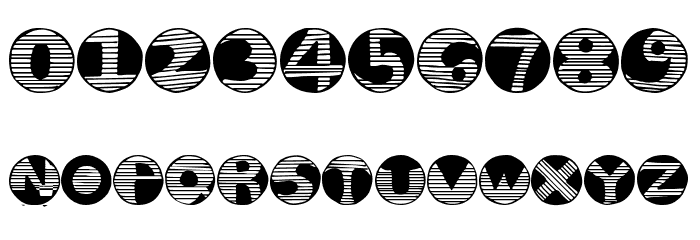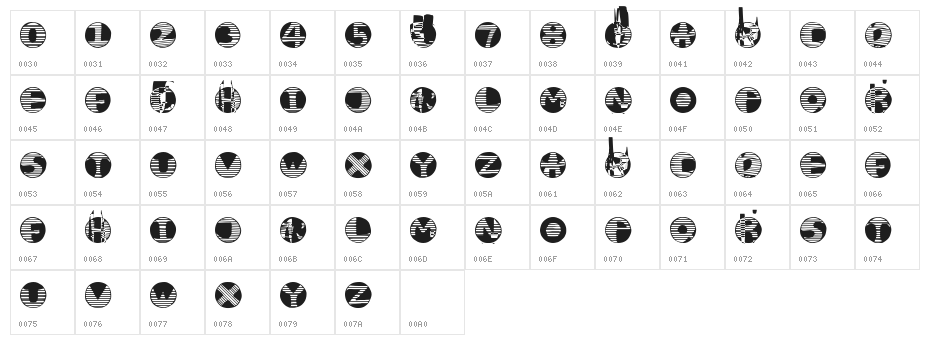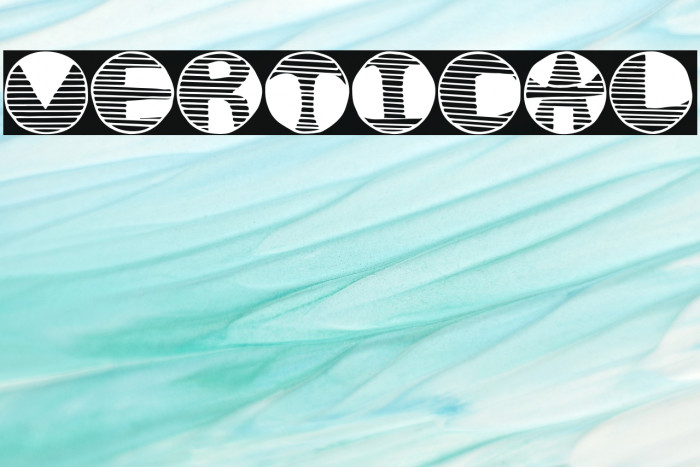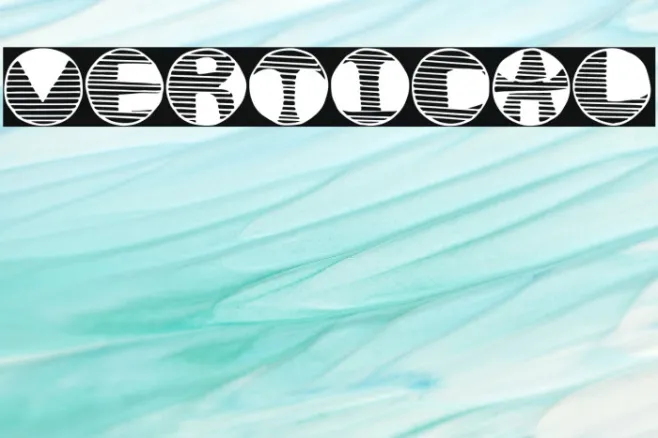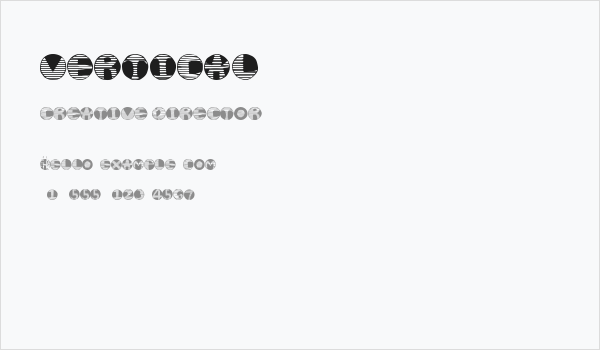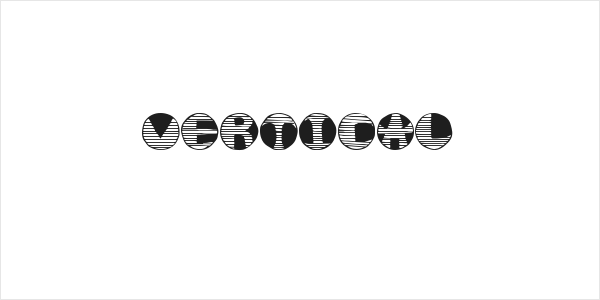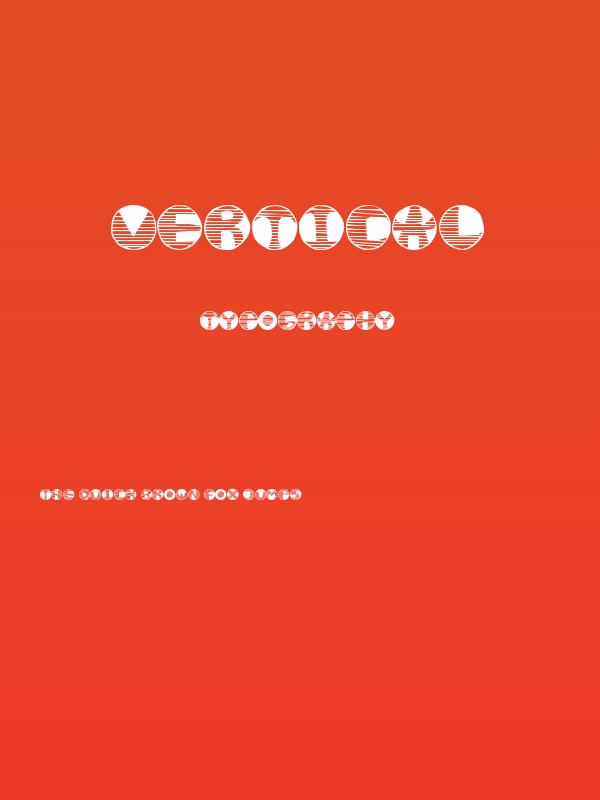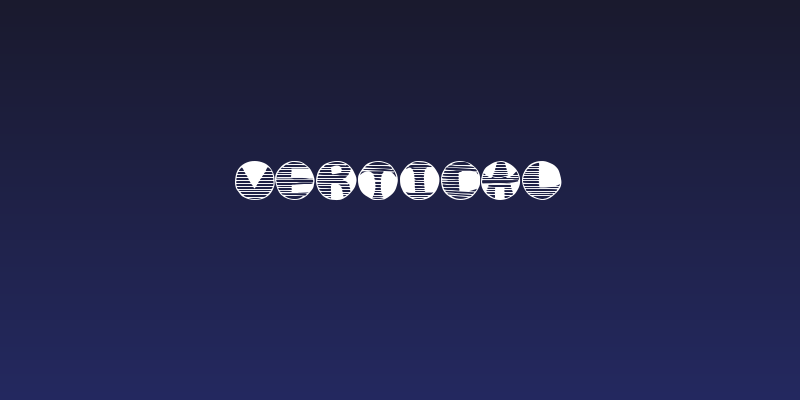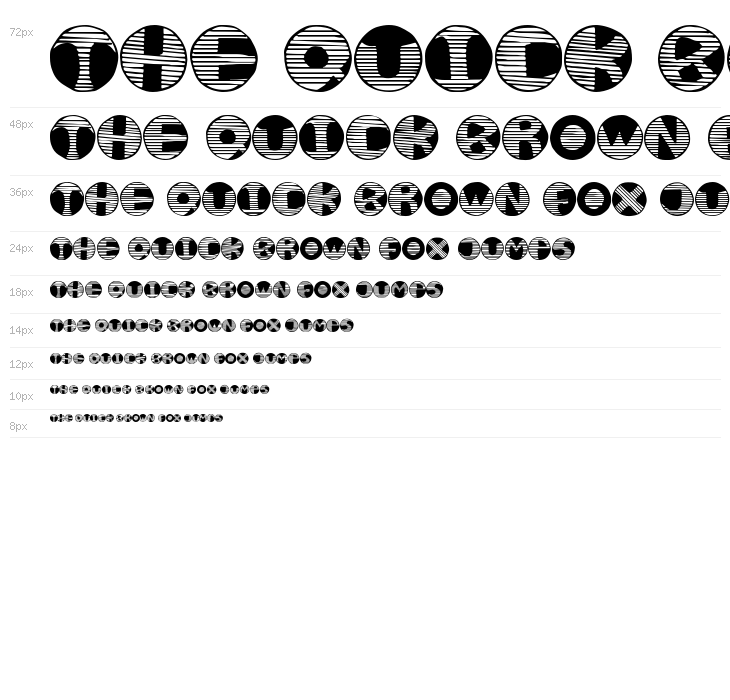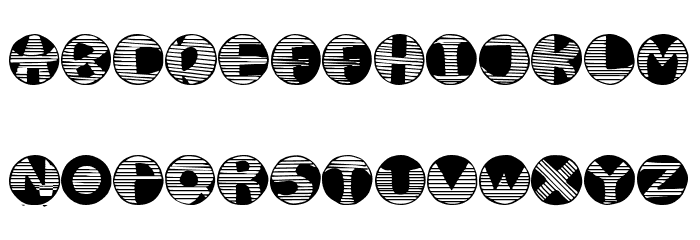
VERTICAL Font
VERTICAL Description
This font features a unique design where each character is enclosed within a circle, creating a bold and eye-catching appearance. The letters are filled with horizontal stripes that alternate between black and white, giving a sense of movement and depth. The geometric style is consistent across uppercase, lowercase, numbers, and special characters, making it a cohesive choice for creative projects. The circular enclosure adds a playful yet structured element, making it suitable for modern and artistic designs.
| Proposed Projects | Ideal for branding, posters, album covers, and any project needing a standout, artistic font. |